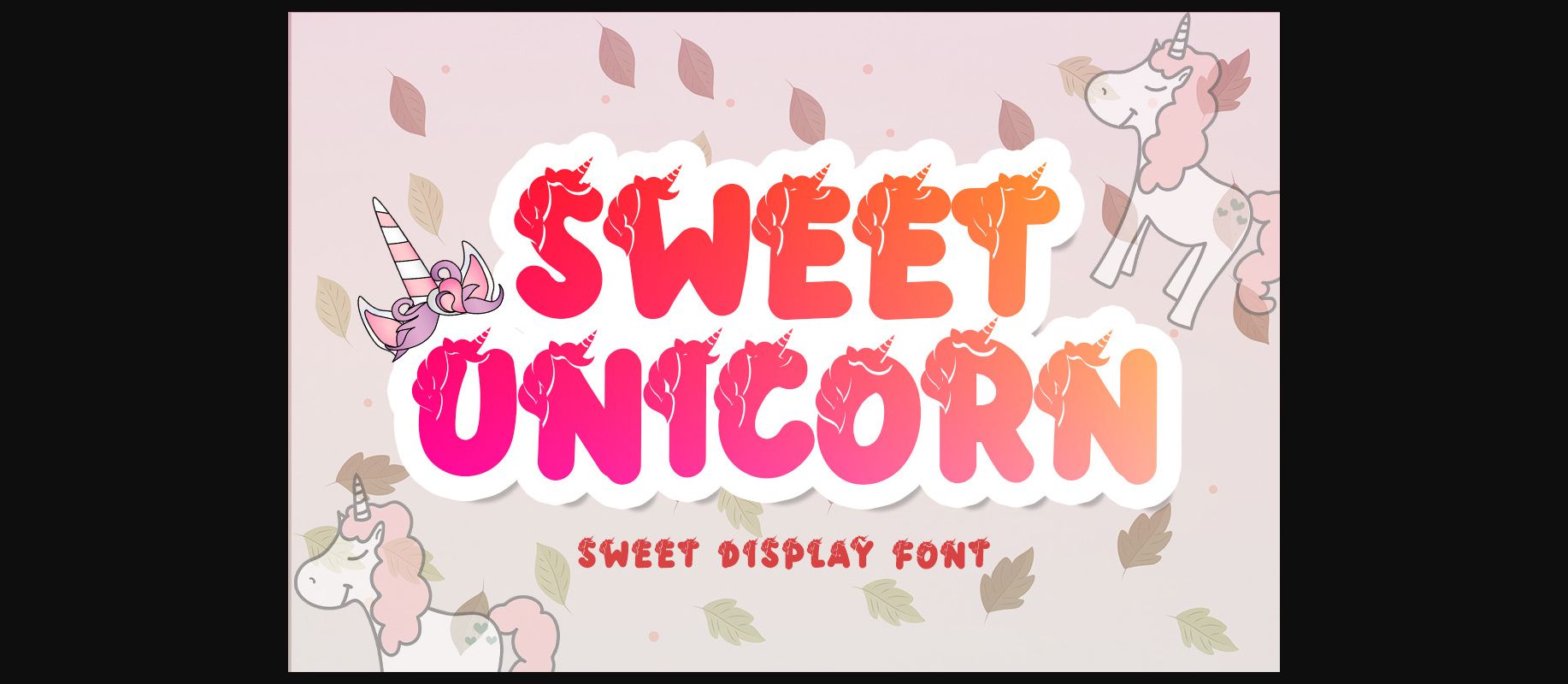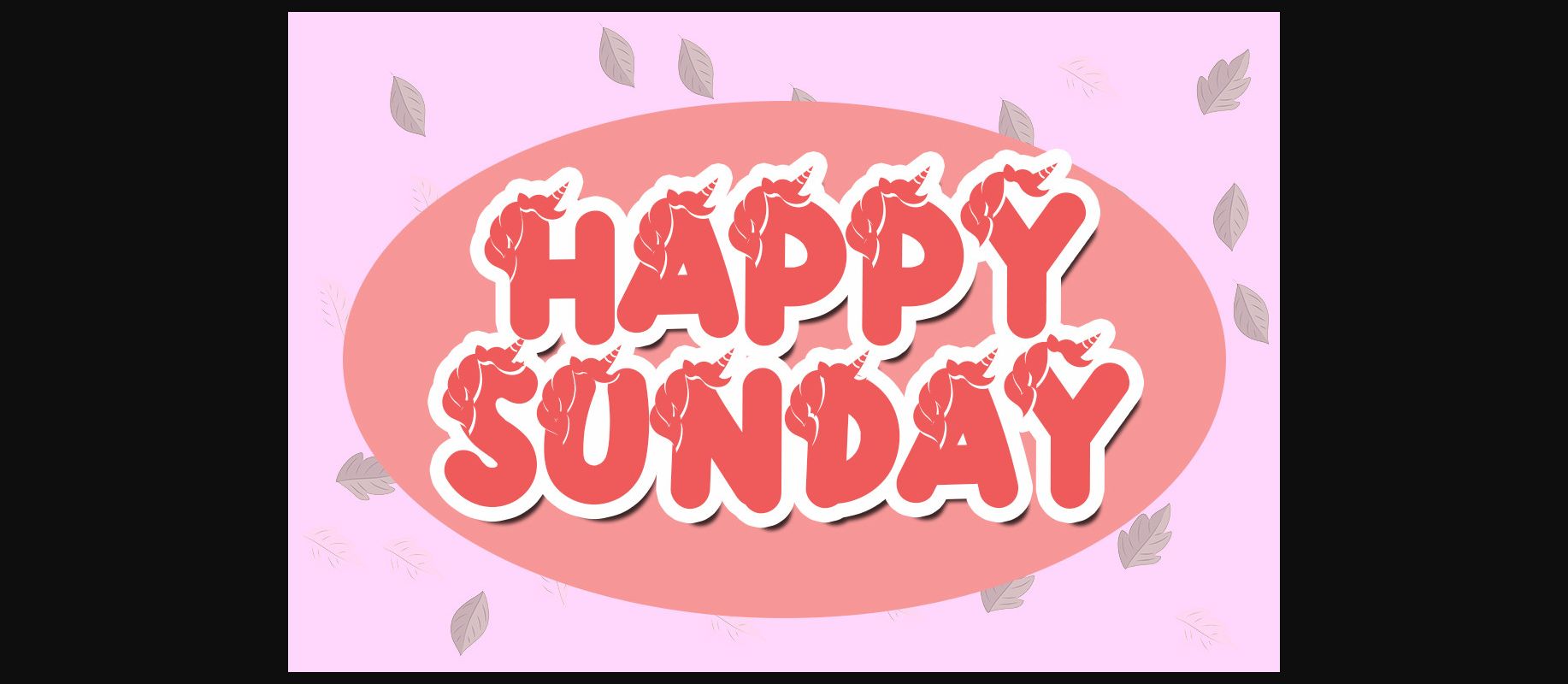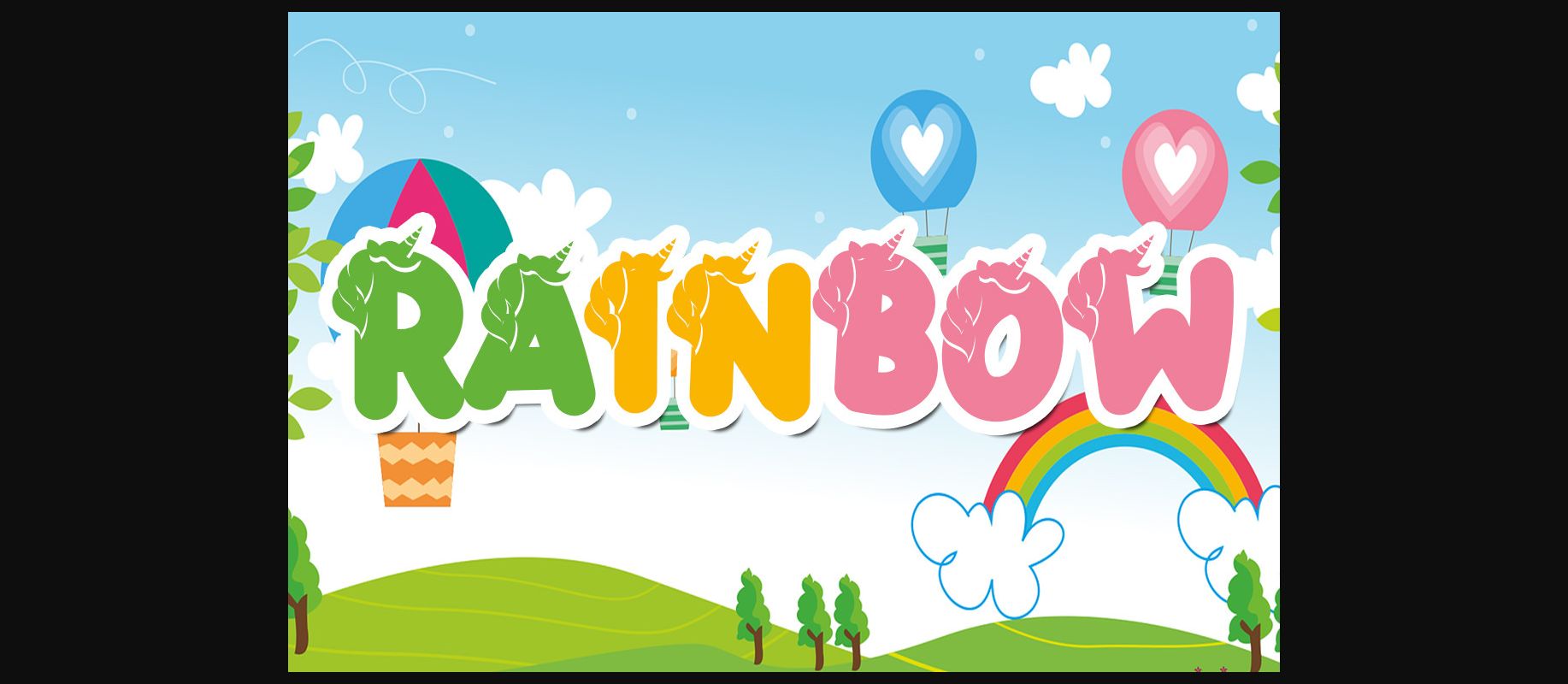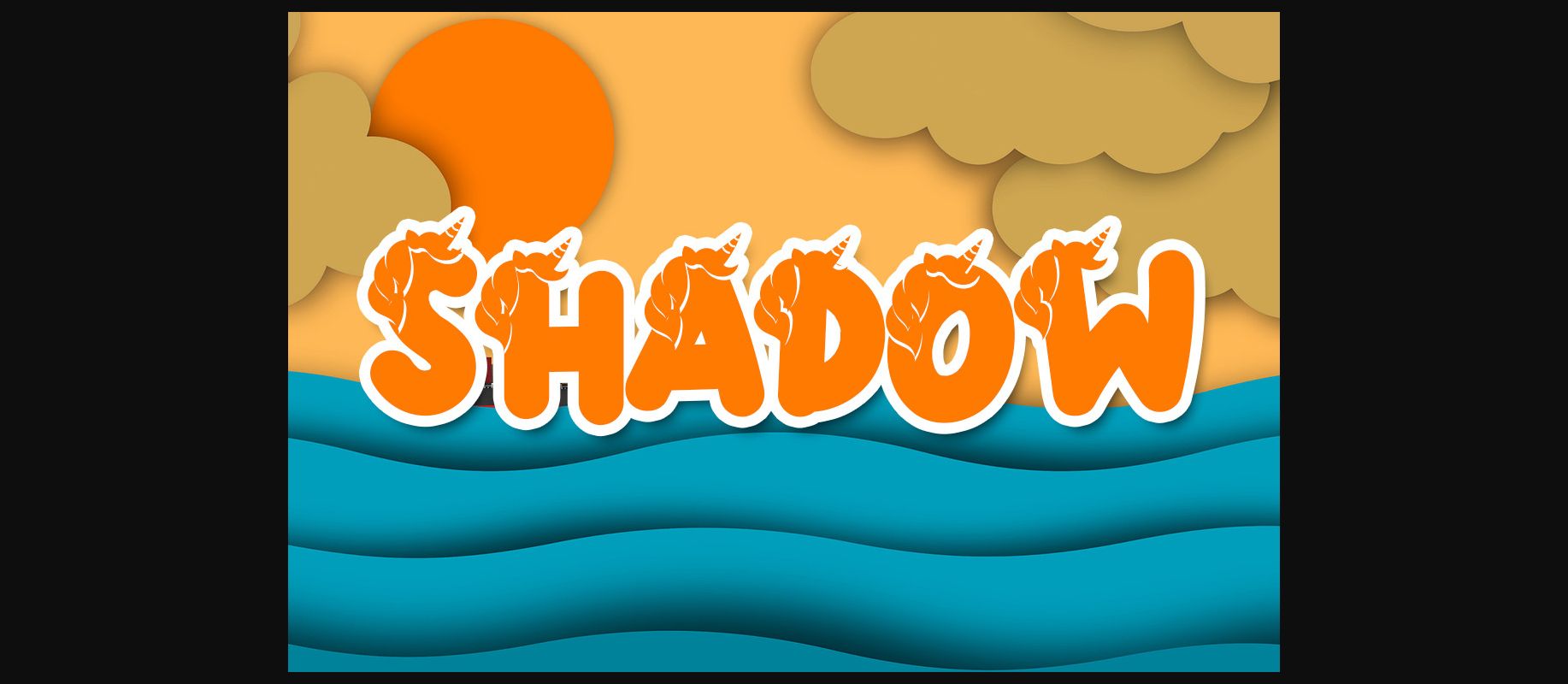
About Sweet Unicorn Font
Sweet Unicorn is a sweet and uniquely designed decorative font. It is PUA encoded which means you can access all of the glyphs and swashes with ease!
Add this chunky lettered font to your designs and notice how it makes them come alive!